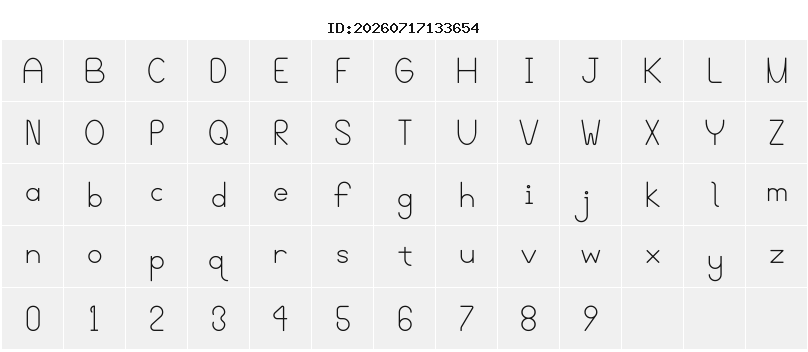
• Font Name: BloomingGroveAlternate
• Font Style: Alternate
• Font ID: FontForge : Blooming Grove Alternate : 9-10-2009
• Full Font Name: Blooming Grove Alternate
• Version: Version 006.000
• PostScript Name: BloomingGrove-Alternate
• Character Count: 106
About BloomingGroveAlternate.ttf
BloomingGroveAlternate.ttf is a modern, elegant sans-serif font designed for ultimate readability and visual harmony. Perfect for branding, headlines, web design, and print materials.